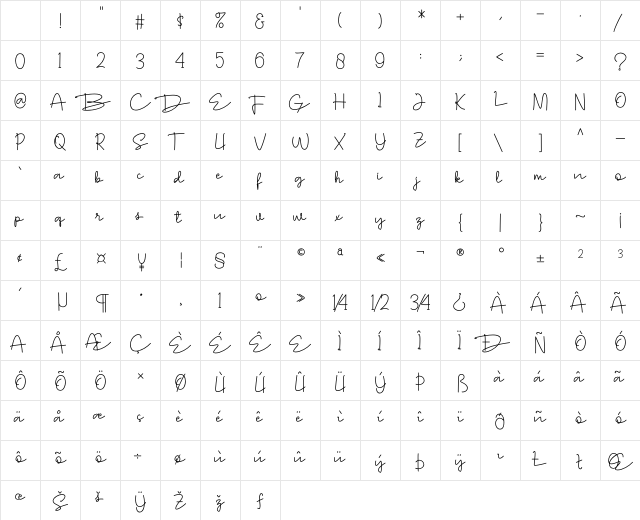
Complete Vougoat ExtLt Regular glyph index. Displaying only characters natively supported by Vougoat ExtLt Regular font.
Vougoat ExtLt is a composed and adaptable typeface that performs quietly and consistently across a wide range of design contexts.